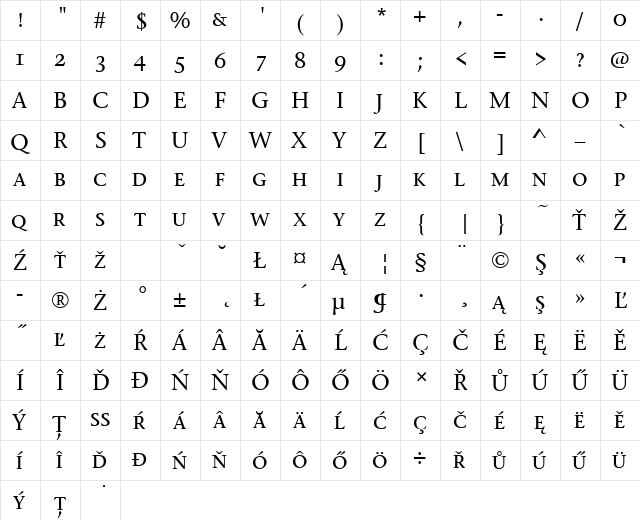
StoneSerSCItcTEEMed Regular
Design Context for StoneSerSCItcTEEMed Typeface
StoneSerSCItcTEEMed offers clean, dependable letterforms without strong stylistic allegiance, making it a practical choice for designers who need flexibility.